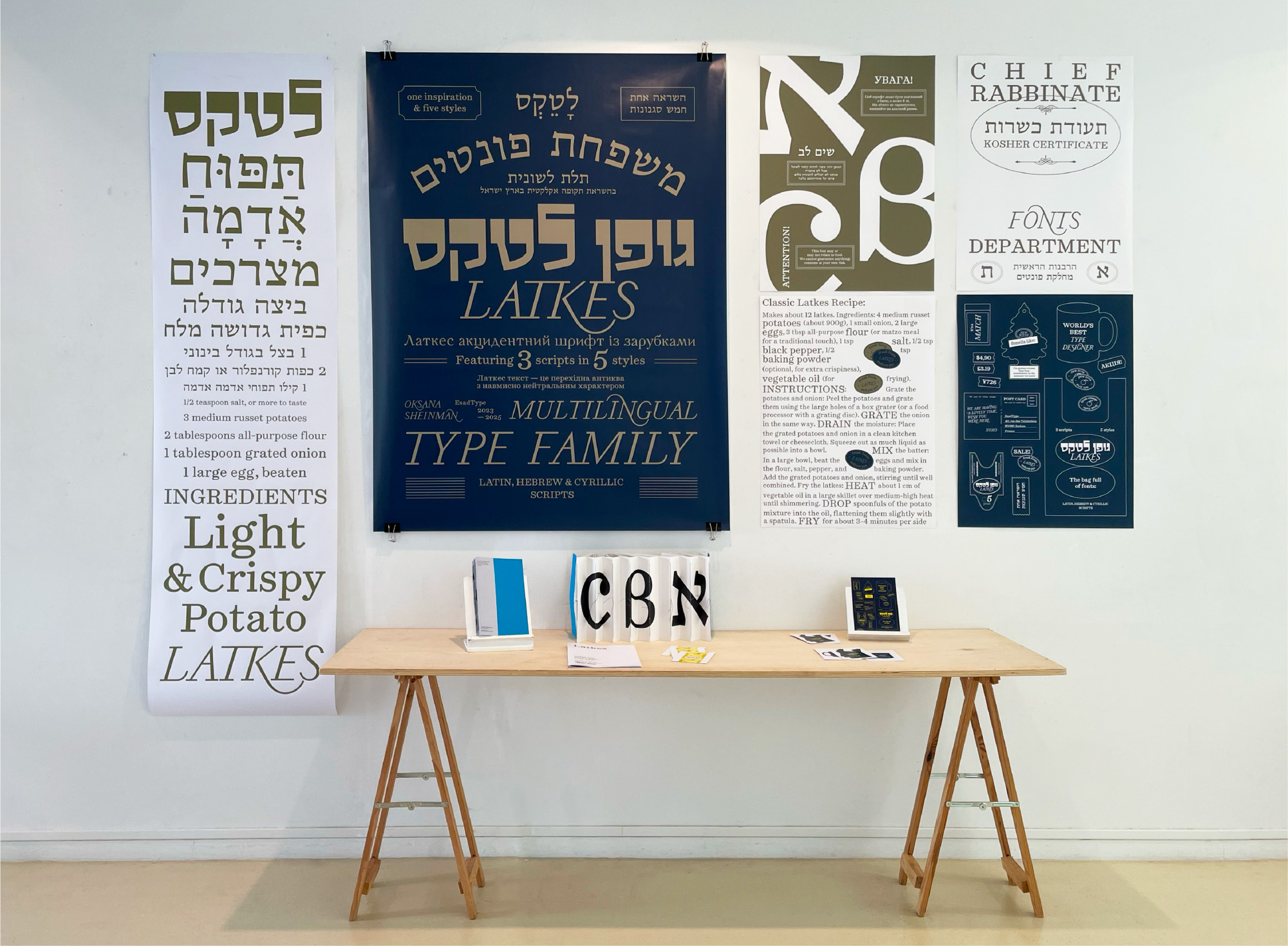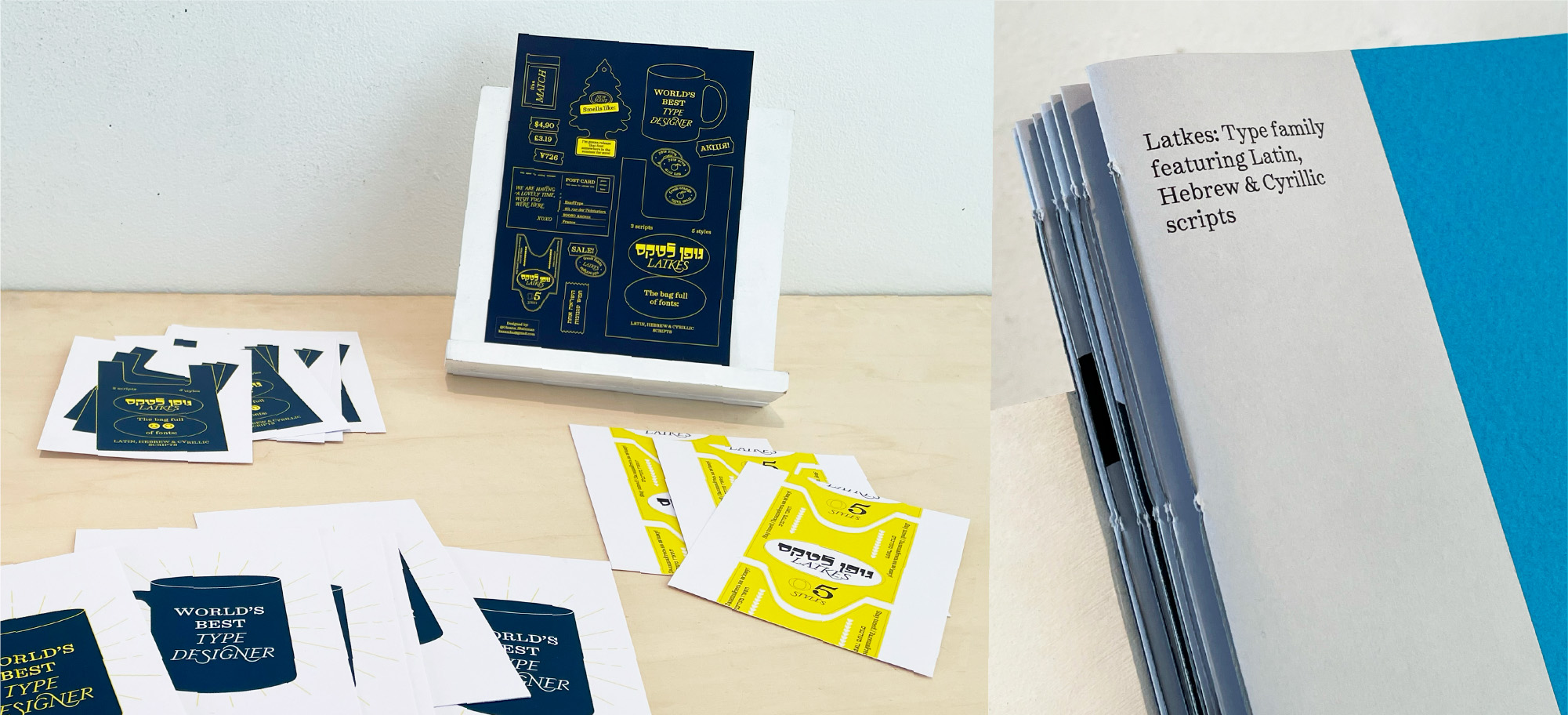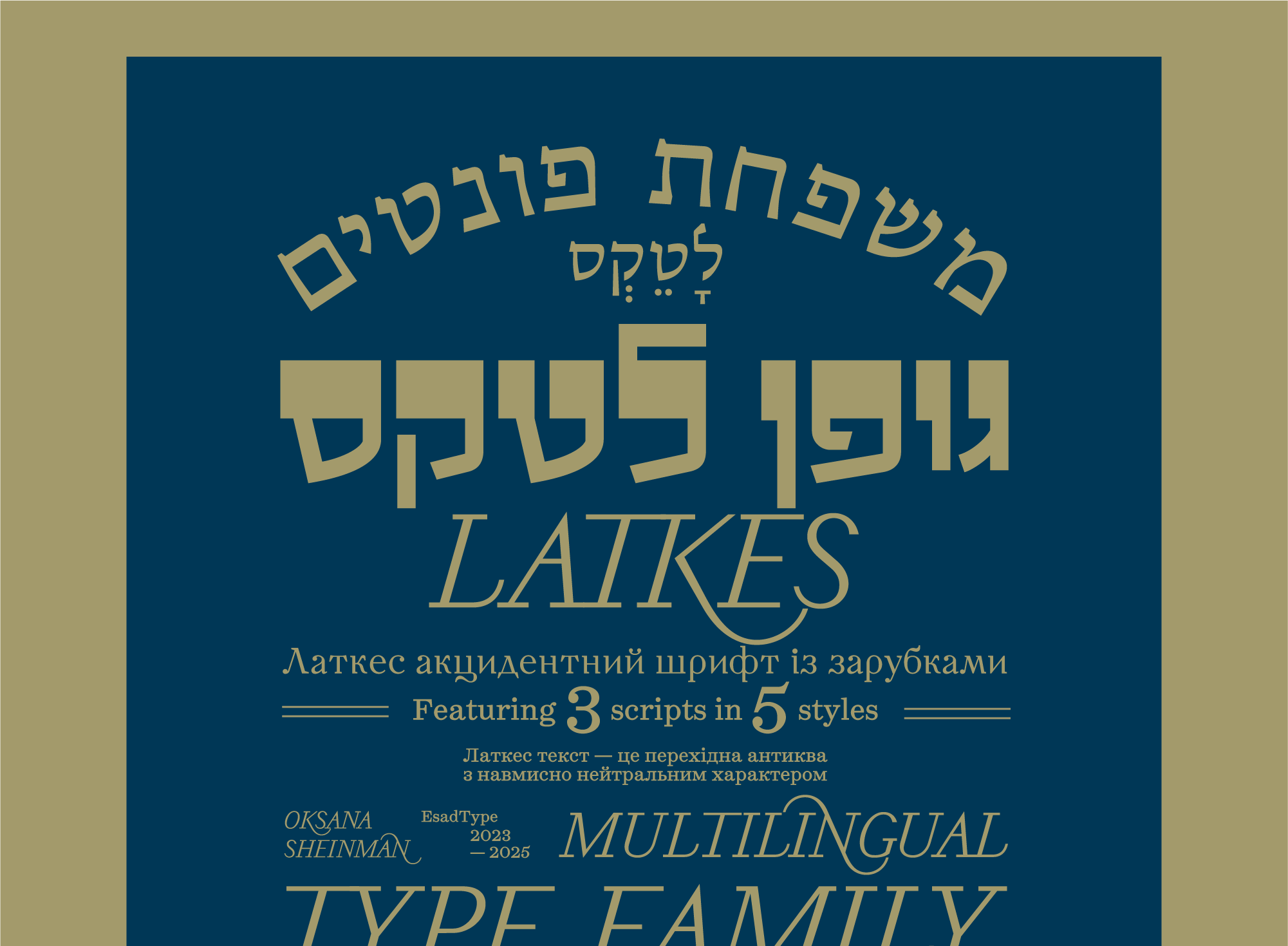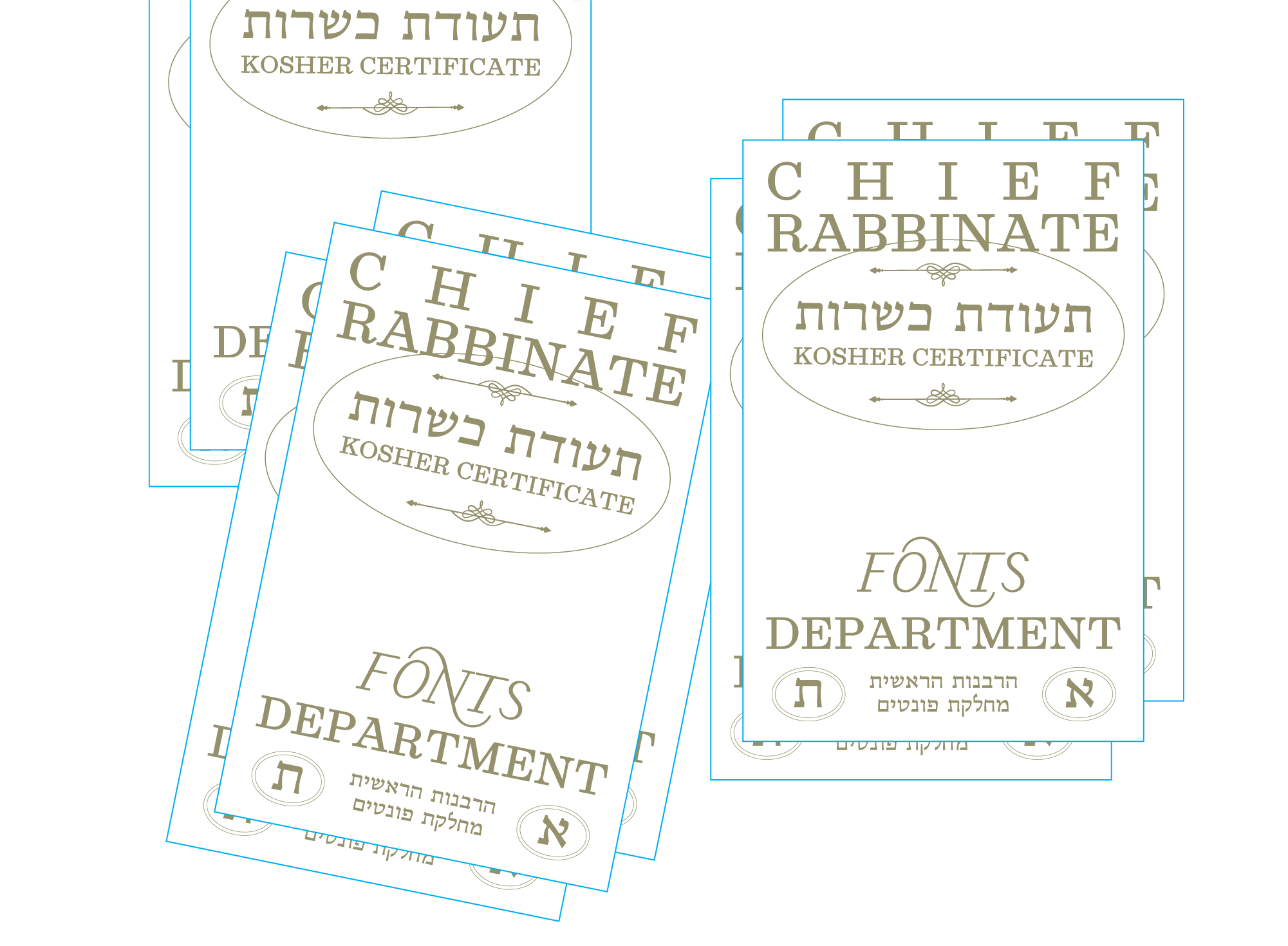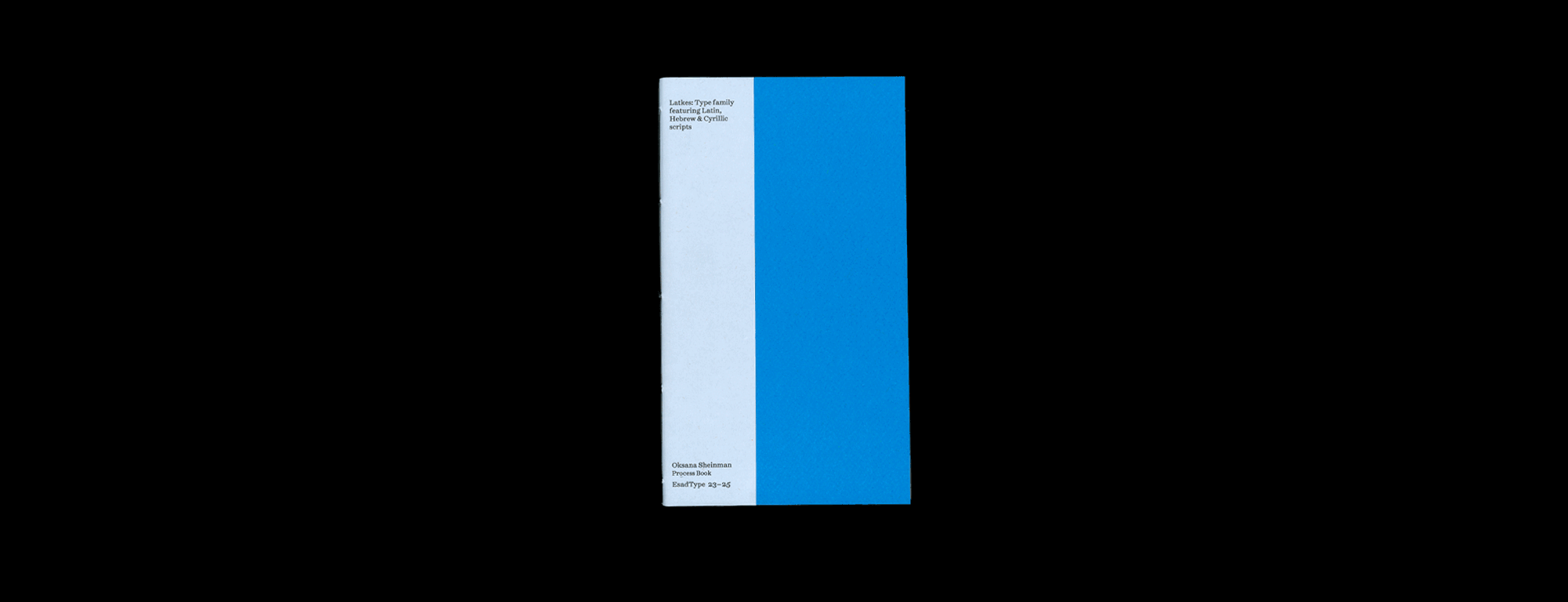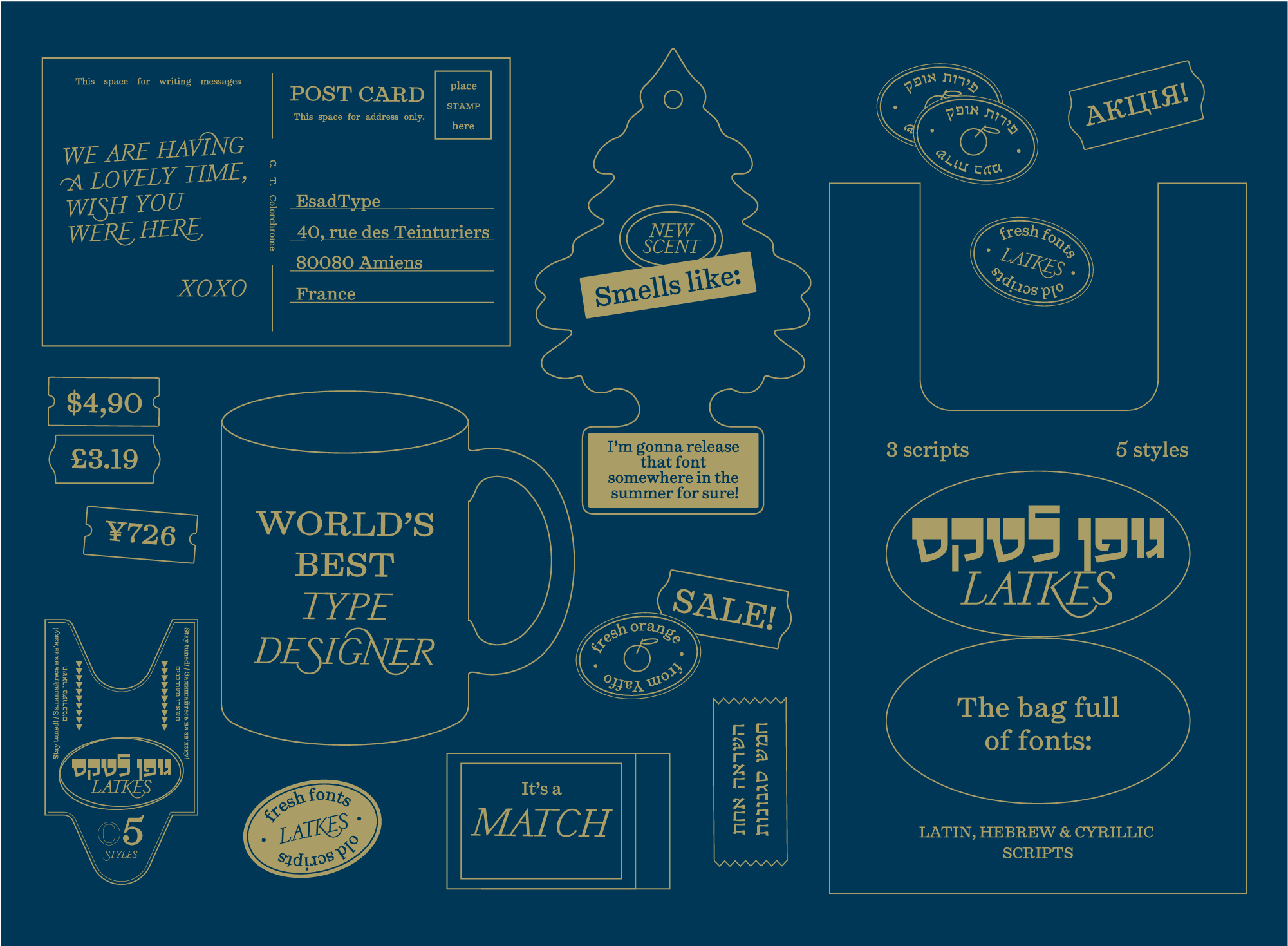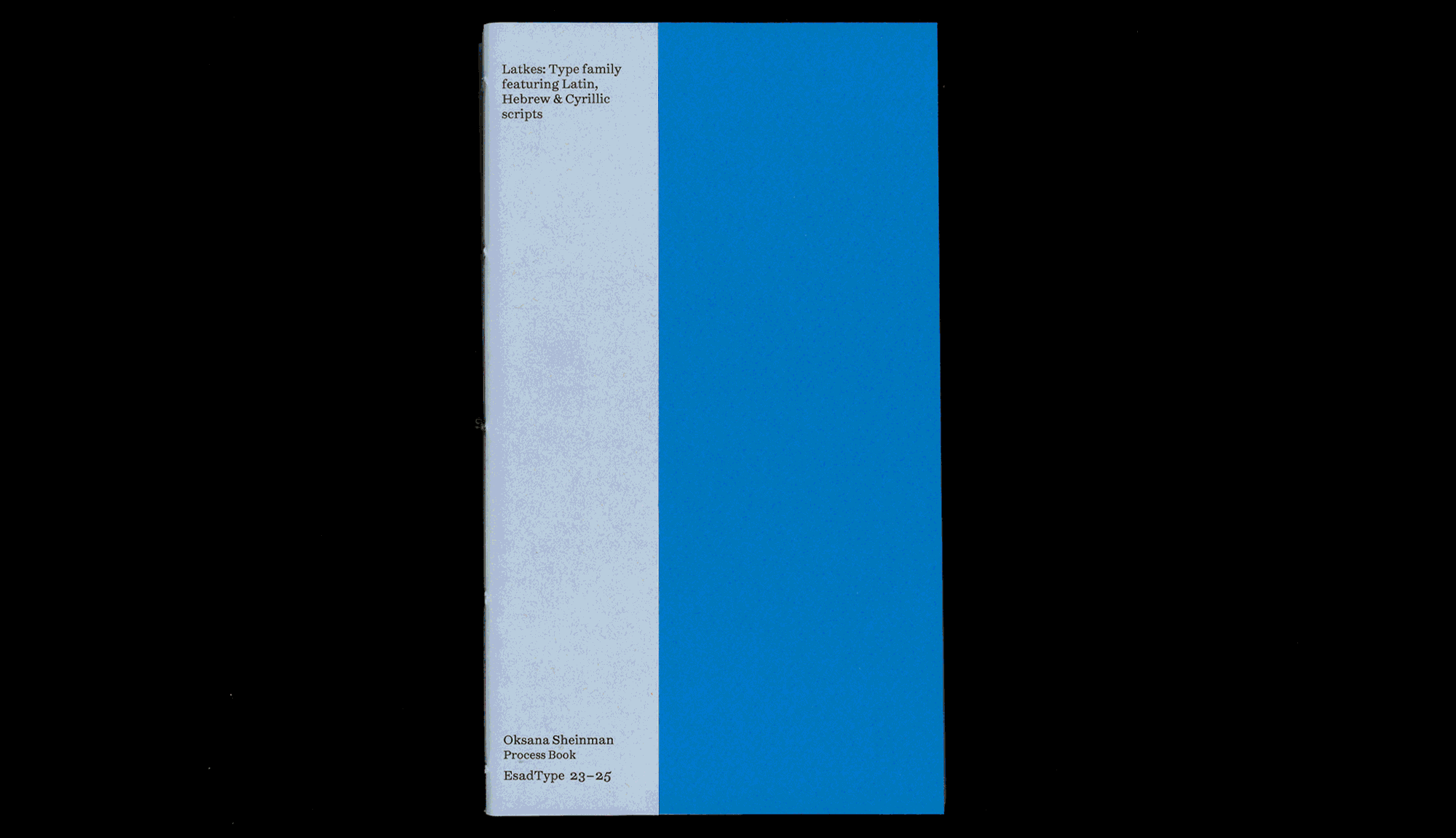
A Type Family Bridging Latin, Hebrew, and Cyrillic
The Latkes type family was designed to harmonize Hebrew, Latin, and Cyrillic scripts, creating a system where each script retains its identity while coexisting seamlessly. Rooted in historical research and typographic experimentation, it draws from diverse influences – Israeli shop signs, Ukrainian banknotes, and classic European type traditions – while adapting to contemporary needs. This approach enhances expressiveness while maintaining structural integrity.
The Latkes Hebrew Text design process has been shaped by experimentation with different mediums. The Latkes Hebrew Display emphasizes horizontal strokes over traditional vertical dominance, inspired by vintage signage and experimental calligraphy. The Latkes Latin Text are built on Scotch Roman base references, balancing classic high contrast with decorative flourishes influenced by flea market book discoveries. The Latkes Cyrillic Display references old Ukrainian banknotes (1917–1918), reinterpreting bold, ornamental details into a modern typographic voice, while the Latkes Cyrillic Text takes inspiration from the Soviet-era Century Schoolbook, known for its readable, warm character.
This type family is carefully designed to maintain the distinct rhythm and proportion based on the geometrical parameters in each script while allowing them to function together as a unified system. The contrast between styles – such as the expressive, bold character of the Display versions and the refined, highly readable Text styles – creates a dynamic typographic palette that can be adapted for different design contexts.
Designed for multilingual branding, editorial, and cultural projects, the type family embraces the contrasts and connections between scripts. It is a versatile tool for designers navigating linguistic and cultural intersections, preserving tradition while pushing type design forward. Whether used for expressive display settings or refined body text, it bridges historical influences with contemporary functionality, celebrating the rich typographic heritage of each script while creating something new.